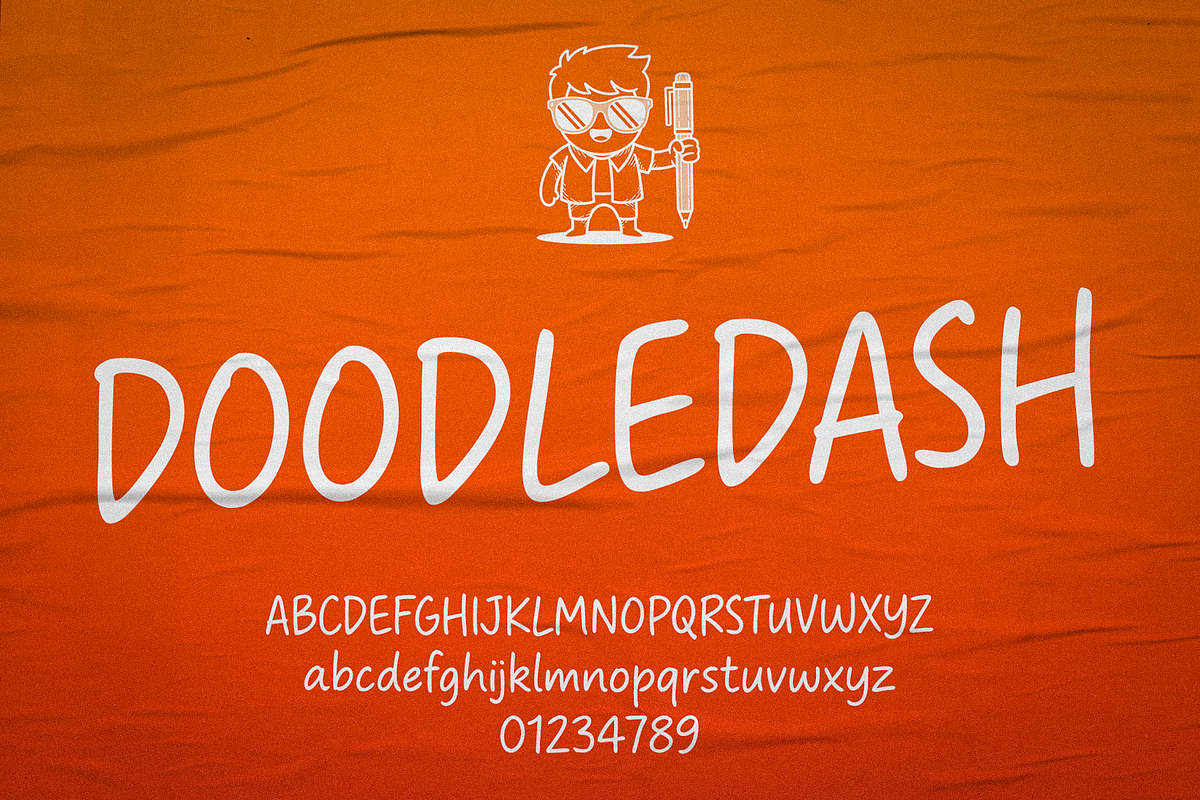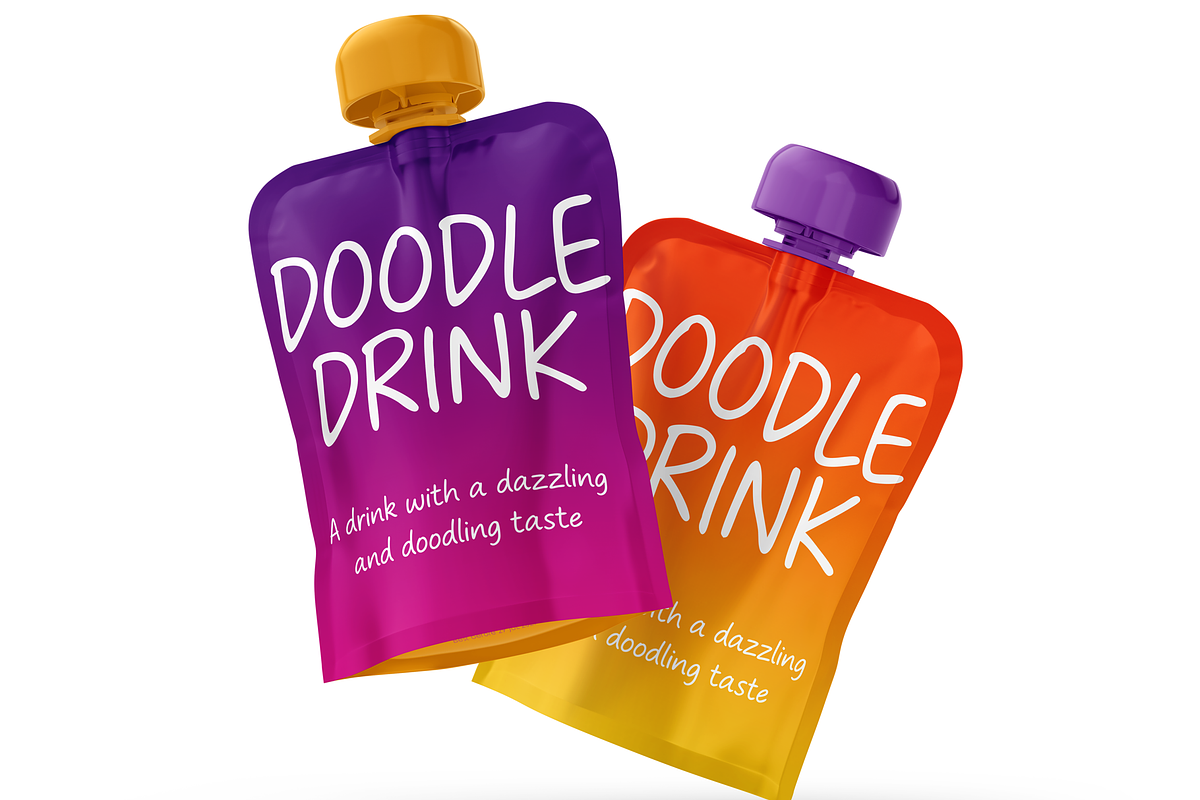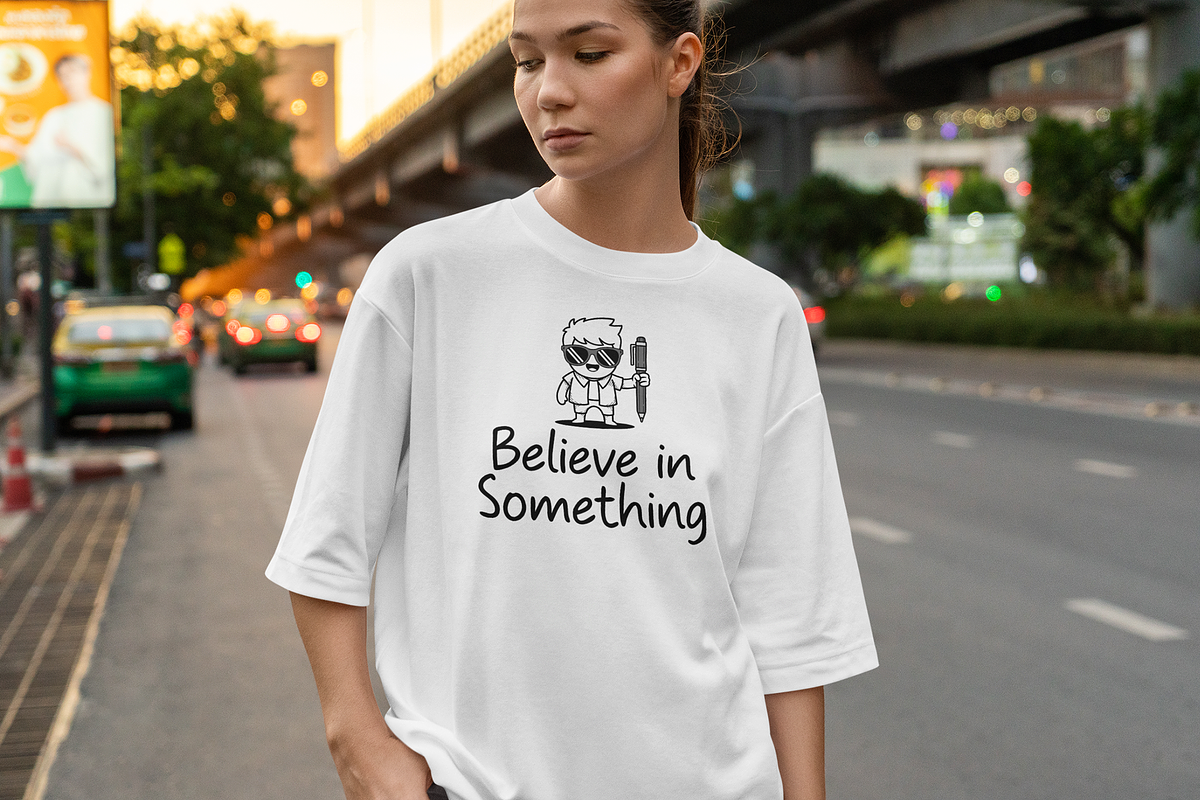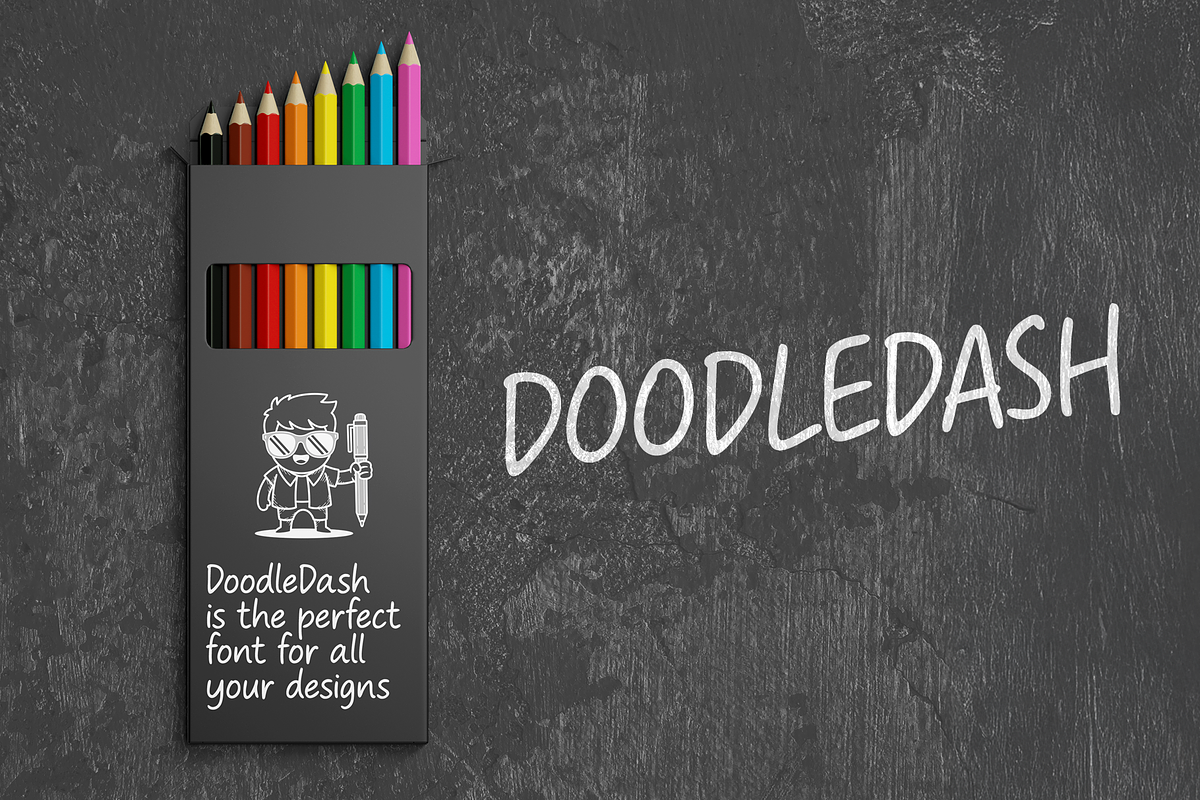
DoodleDash Playful Handwritten Font
Add a touch of whimsy to your designs with DoodleDash, a playful handwritten font! Perfect for creatives, small business owners, and designers, this font brings a casual, hand-drawn charm to your projects. Whether you’re creating invitations, social media graphics, branding, or product packaging, DoodleDash makes your text pop with personality.
- Invitations, greeting cards, and event branding
- Social media graphics and marketing materials
- Product packaging and Etsy shop branding
- Casual logos and personal projects
Why You’ll Love It:
- Playful, hand-drawn style with a unique, doodle-like charm
- Adds a personal, approachable vibe to your designs